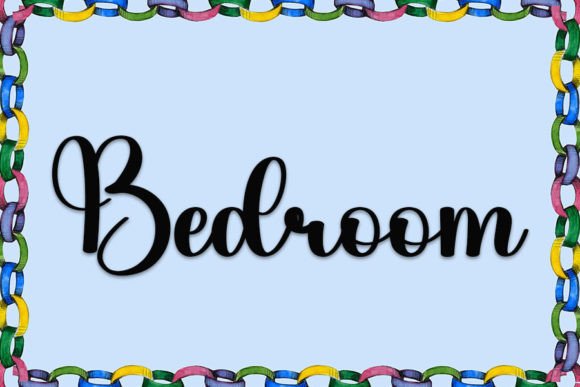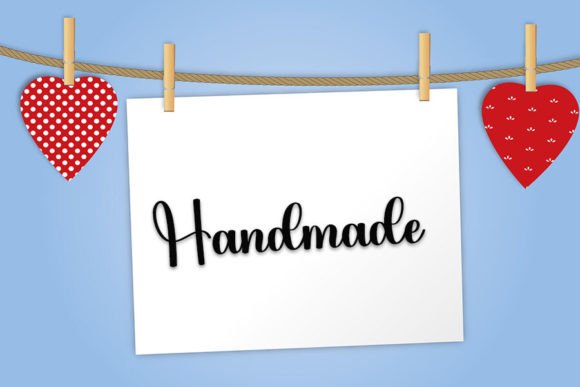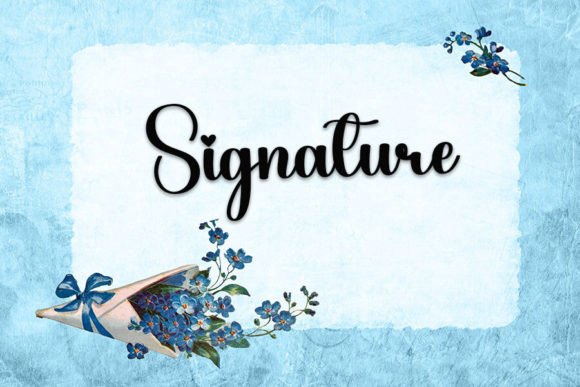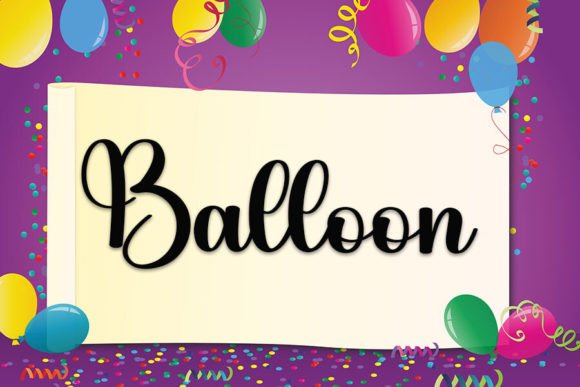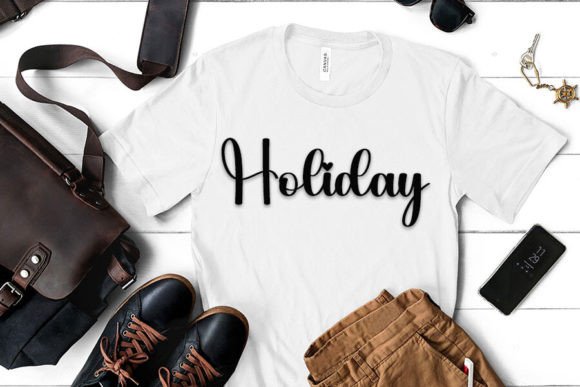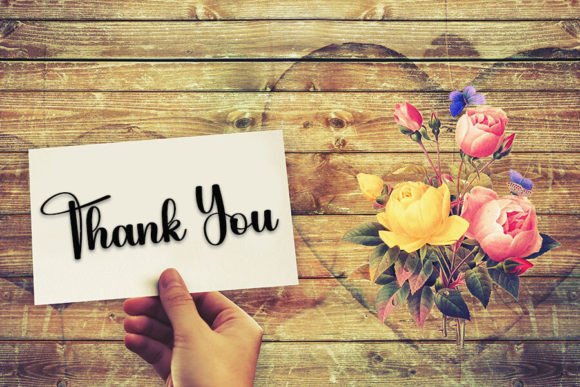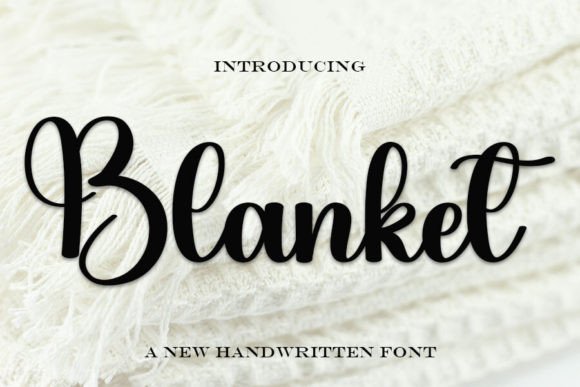
Introducing Blanket Font: The Timeless Handwritten Choice for Designers and Crafters
In the world of typography, a good font can make all the difference in creating visually appealing designs. For designers and crafters looking for a lovely and timeless handwritten font, Blanket Font is an excellent choice. With its unique charm and character, Blanket Font is perfect for creating eye-catching logos, branding, and quotes that stand out from the crowd.
The Characteristics of Blanket Font
Blanket Font is a beautifully crafted handwritten font that exudes warmth and personality. Its letters are carefully designed to have a gentle, cursive feel that is both elegant and approachable. The font’s lines are smooth and flowing, making it perfect for creating a wide range of designs, from rustic and vintage to modern and sophisticated.
One of the standout features of Blanket Font is its versatility. It can be used for a variety of design projects, including:
- Logos and branding: Create a lasting impression with a custom logo that showcases your brand’s personality.
- Quotes and posters: Add a touch of elegance to your inspirational quotes and posters.
- Stationery and invitations: Make your stationery and invitations stand out with a beautiful, handwritten font.
- Web design: Use Blanket Font to add a personal touch to your website’s design.
Why Choose Blanket Font?
So, why should designers and crafters choose Blanket Font over other fonts? Here are just a few reasons:
- Unique character: Blanket Font has a distinctive character that sets it apart from other fonts.
- Timeless appeal: The font’s classic design ensures that it will remain stylish for years to come.
- Easy to read: The font’s clear and legible design makes it easy to read, even at small sizes.
- High-quality design: Blanket Font is designed with high-quality craftsmanship, ensuring a professional finish.
Tips for Using Blanket Font
To get the most out of Blanket Font, here are some tips for using it in your designs:
- Pair with contrasting fonts: Pair Blanket Font with a contrasting font to create visual interest and hierarchy.
- Experiment with colors: Try out different colors and textures to add depth and personality to your designs.
- Use for headlines and titles: Use Blanket Font for headlines and titles to create a bold and eye-catching effect.
In conclusion, Blanket Font is a lovely and timeless handwritten font that is perfect for designers and crafters looking to create eye-catching logos, branding, and quotes. With its unique character, timeless appeal, and versatility, Blanket Font is an excellent choice for a wide range of design projects. Whether you’re looking to create a rustic and vintage design or a modern and sophisticated one, Blanket Font is sure to impress.